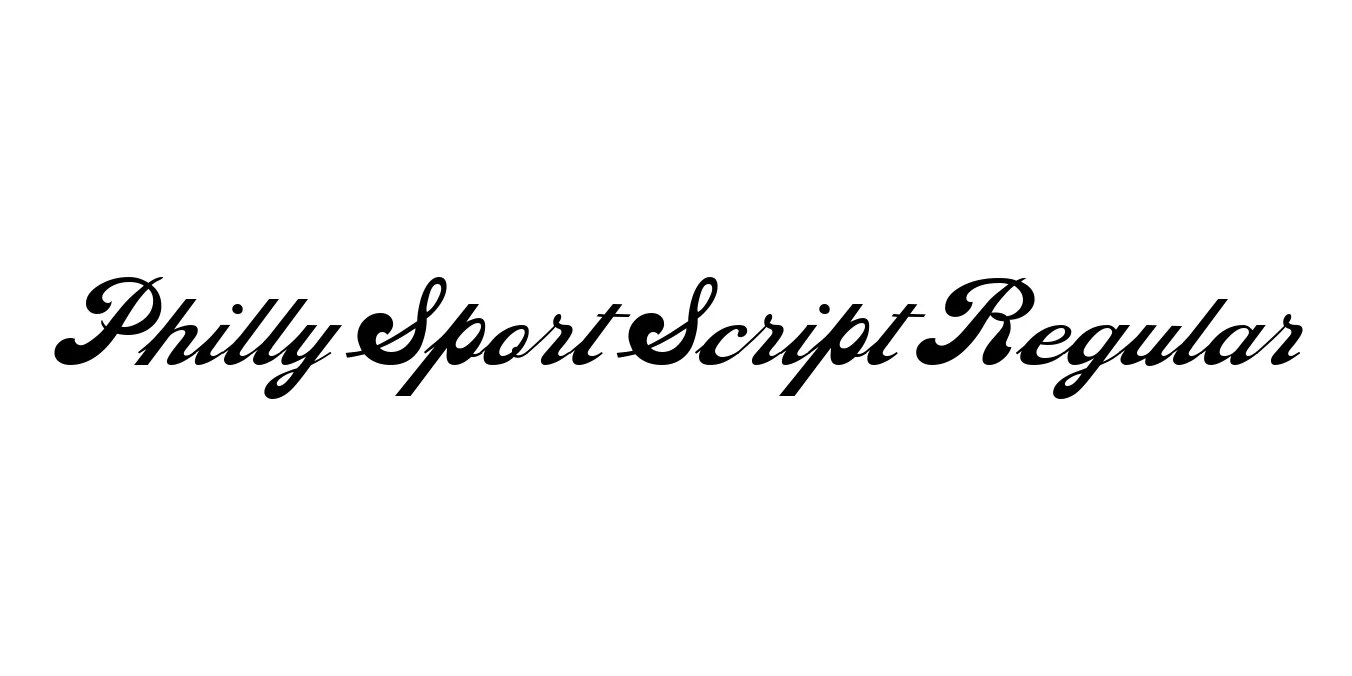
Philly Sport Script Regular
Designed by Nick Curtis
Philly Sport Script Regular is a dynamic and high-energy script typeface created by the prolific designer Nick Curtis. This font is a tribute to the golden era of American athletics, specifically drawing its aesthetic from the hand-lettered scripts found on mid-century baseball jerseys and collegiate pennants. Its bold, fluid strokes and rhythmic connectivity evoke a sense of movement and nostalgic charm, making it a standout choice for high-impact display work.
The design features a thick weight with distinct flourishes that maintain excellent legibility even at larger scales. As a revival of classic sportswear lettering, it bridges the gap between traditional sign painting and modern digital typography. It has been widely adopted by designers looking to infuse their projects with a sense of team spirit, heritage, and the classic Americana vibe often associated with vintage sports branding.
Philly Sport Script Regular Best Uses
Creating professional logos for teams, clubs, and athletic organizations.
Printing on sports jerseys, hoodies, and team merchandise.
Developing bold, script-based identity systems with a retro feel.
Designing eye-catching headlines for tournaments and sporting events.